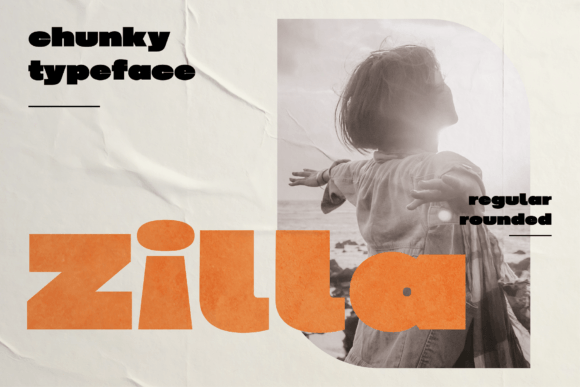
Behold the Zilla Font, a modern and audacious display typeface crafted by the font artisans at HipFonts, presenting you with a world of typographic possibilities. Zilla's thick, quirky strokes and bold demeanor make it the perfect font for injecting a dose of personality into your designs. Its captivating presence demands attention, inviting your audience to delve into your creations.
Zilla is a versatile font family, offering two distinct flavors: the sharp Regular and the softer Rounded. Whether you seek to create striking headlines, eye-catching covers, engaging social media posts, captivating thumbnails, or immersive books, Zilla's got you covered. Its adaptability knows no bounds, allowing you to effortlessly switch between styles to match the mood of your project.
With Zilla at your fingertips, you'll discover endless opportunities for creative expression. Its bold strokes and playful curves add an instant touch of whimsy and dynamism to your designs. Unleash your creativity and craft expressive visuals that resonate with your audience. Make a statement, leave a lasting impression, and let Zilla's unique charm ignite your imagination.
Zilla's beauty lies in its versatility, allowing you to weave it into a tapestry of design possibilities. Let your imagination soar as you craft captivating headlines that command attention, covers that intrigue and entice, and social media posts that pop off the screen. Zilla's distinctive character shines through in thumbnails, adding a touch of intrigue that compels viewers to click. Whether you're designing books or embarking on any other creative endeavor, Zilla is your trusted companion, elevating your projects to new heights of visual appeal.
With Zilla by your side, you'll embark on a design journey filled with creativity and satisfaction. Its modern aesthetic and bold personality will transform your projects into visually stunning masterpieces. Experience the joy of creating designs that resonate with your audience, leaving an indelible mark on their minds. Zilla is more than just a font; it's a gateway to a world of typographic exploration, where boundless creativity meets captivating visuals.